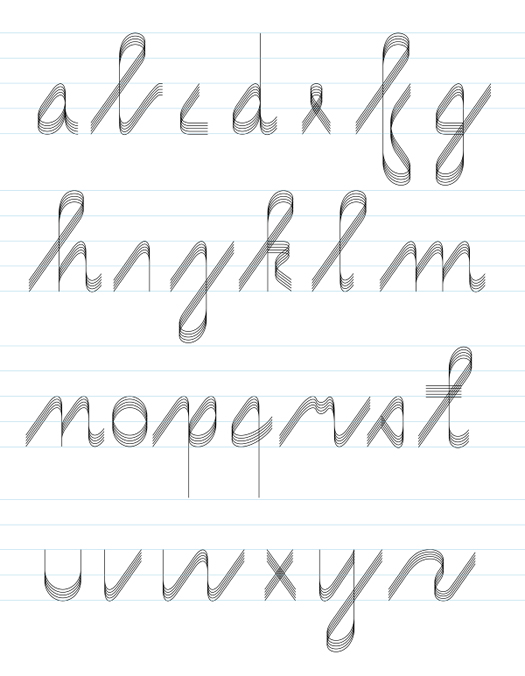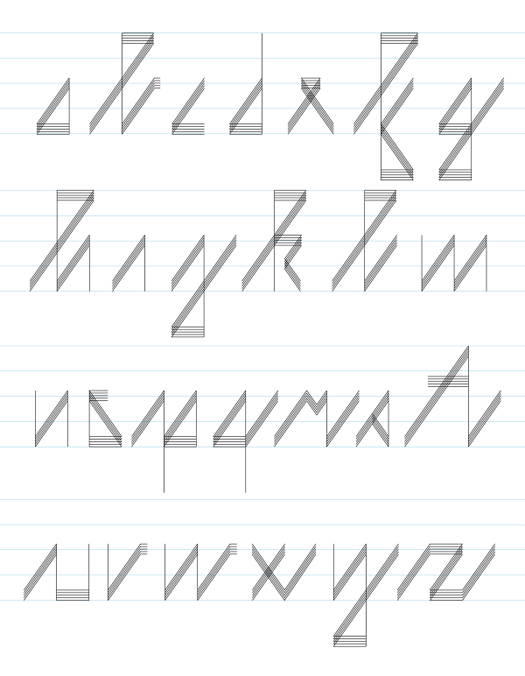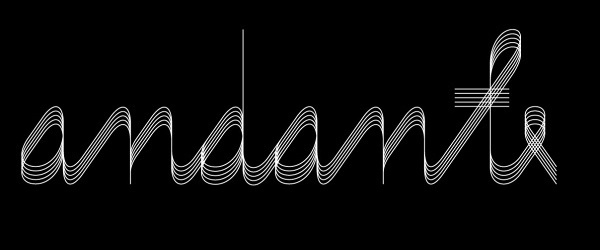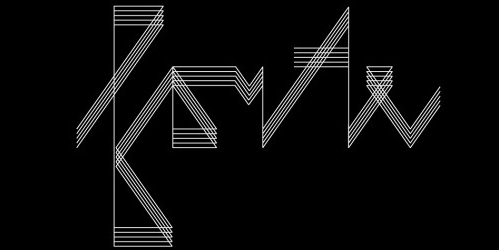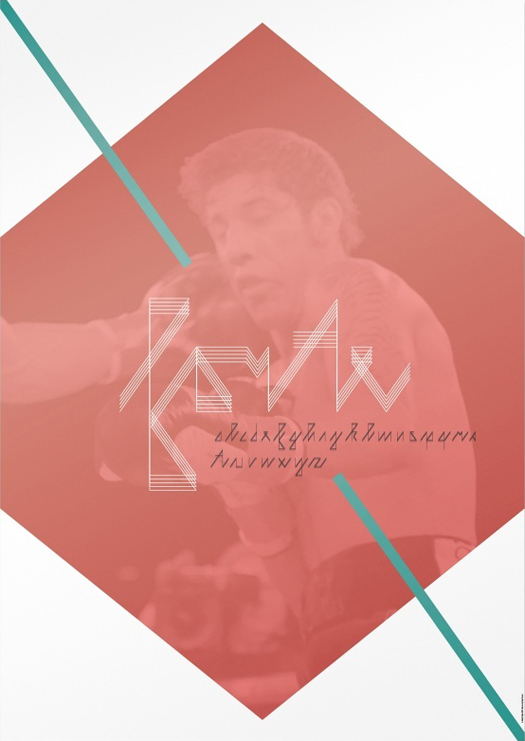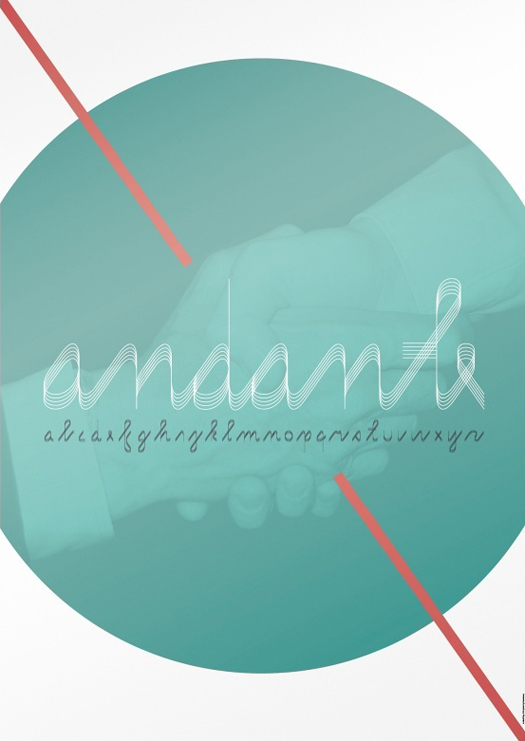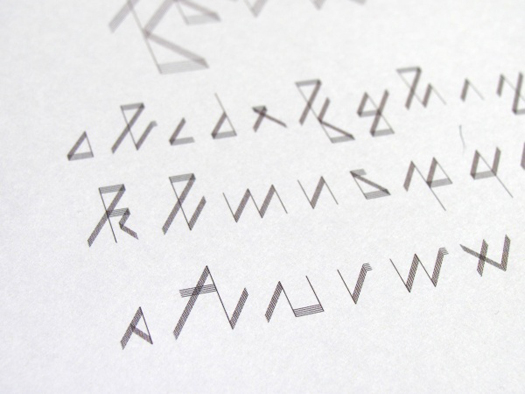
Andante & Forte
Two fonts based on same principle of five parallel lines with opposite character. Andante is meant to be smooth, decent and calm, while Forte is very rough, straight and sharp.
Designer: Jakub Caja